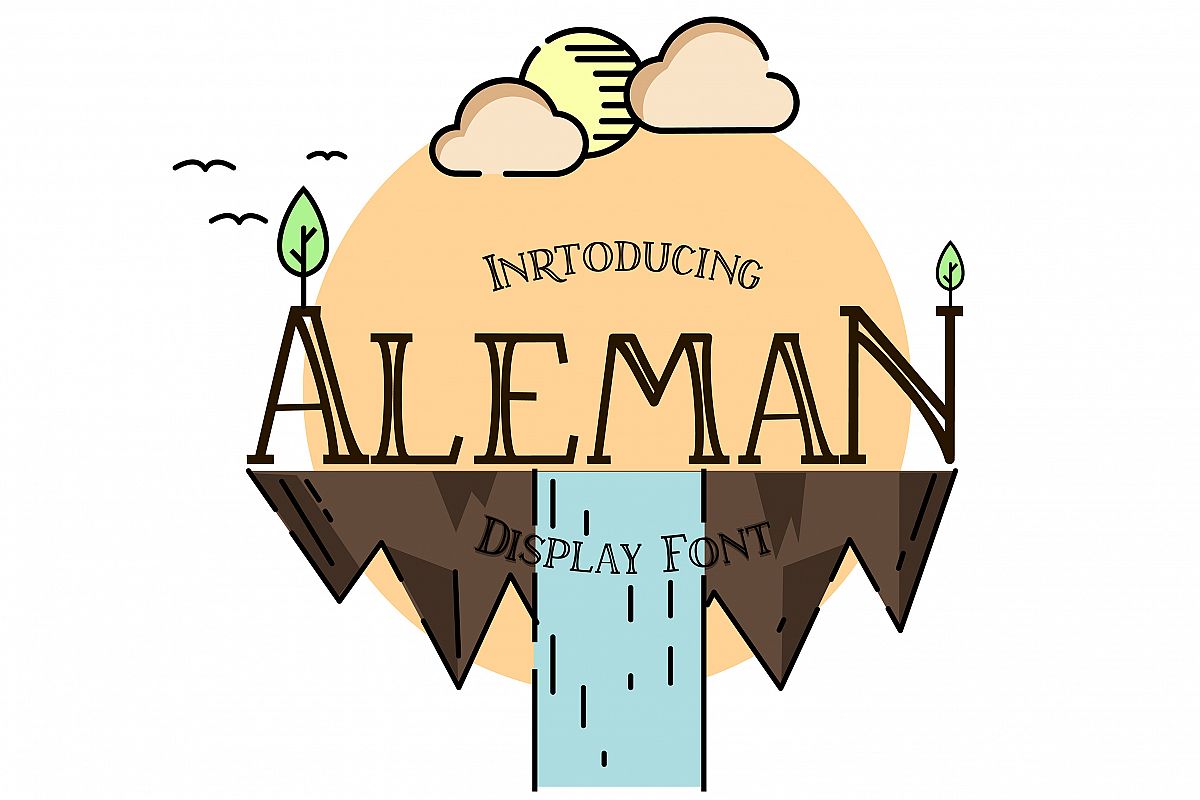
Aleman serif font
ALEMAN Bold
ALEMAN Italic
ALEMAN
ALEMAN Light
Aleman is a two lined and tasteful typeface it has a fancy style and interesting letterforms that make it a versatile display font for creating vintage labels, branding, packaging, posters, marketing & many more!. Two format available in this package .ttf and .otf.
• Aleman regular an original taste of aleman font
• Aleman bold  will give your graphics element strong feels
• Aleman italic soft tilted aleman font
• Aleman light will give your graphics element elegance feels